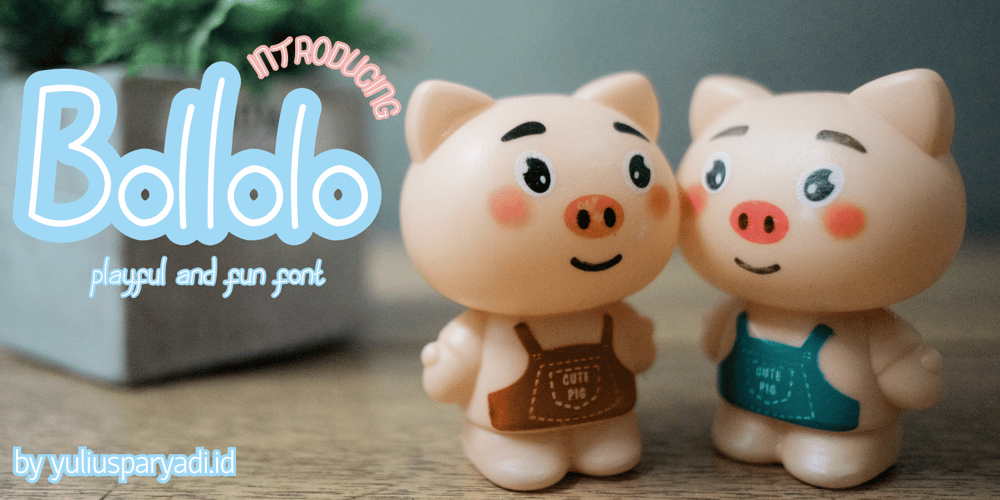
Bollolo Font Family was designed by Yulius Paryadi and published by YuliusParyadi. Bollolo contains 1 styles and family package options. Bollolo (Handwritten) is a fun and playful font. Bollolo name is made from bolo-bolo which is mean lets be friend. This font is readable, catchy, and easy to use. This font is suitable for quotes, logo designs, kids toys, story book, and many other design projects. Bollolo is includes:- full set uppercase and lowercase letter;- numerals;- multilingual support;- large number of punctuations;- ligatures. Please add this font as your favorite, hit like button, or follow me. I’ll very happy for that and appreciated it.